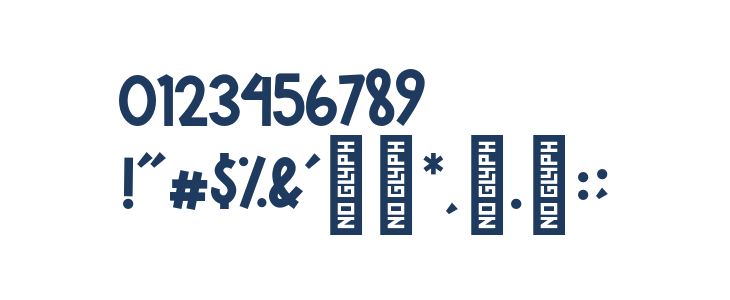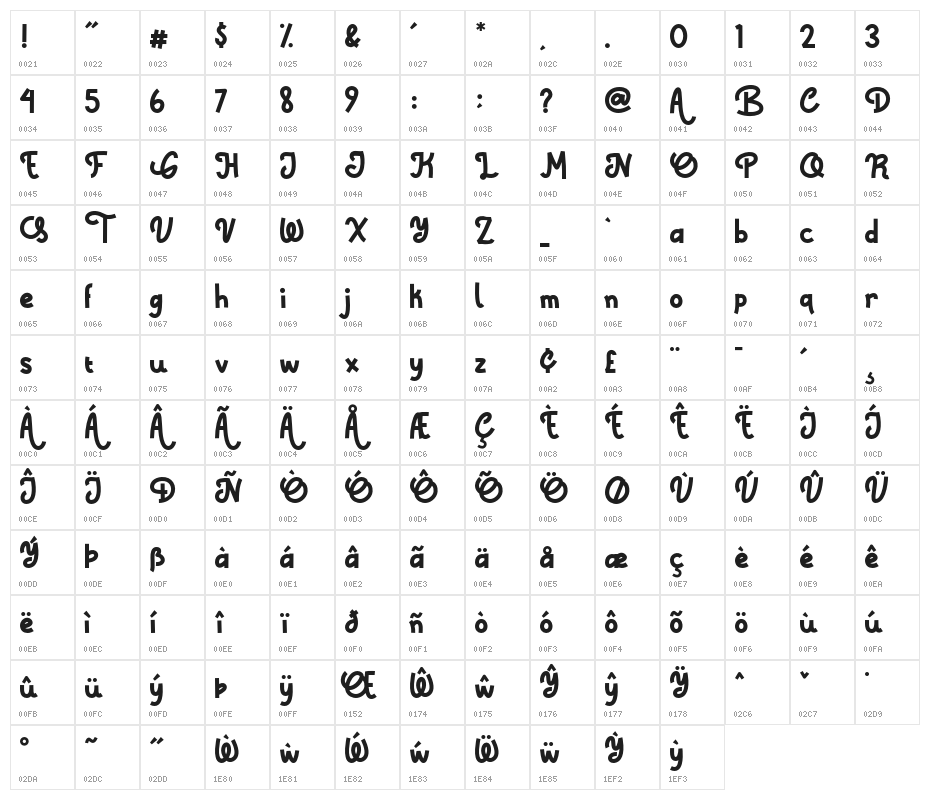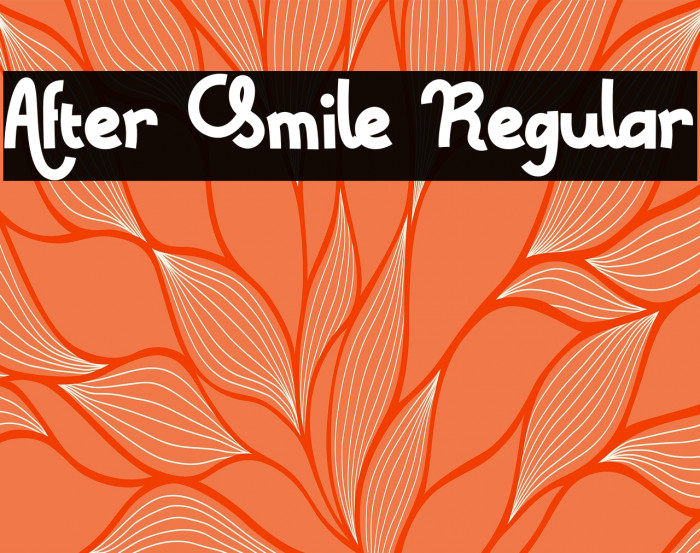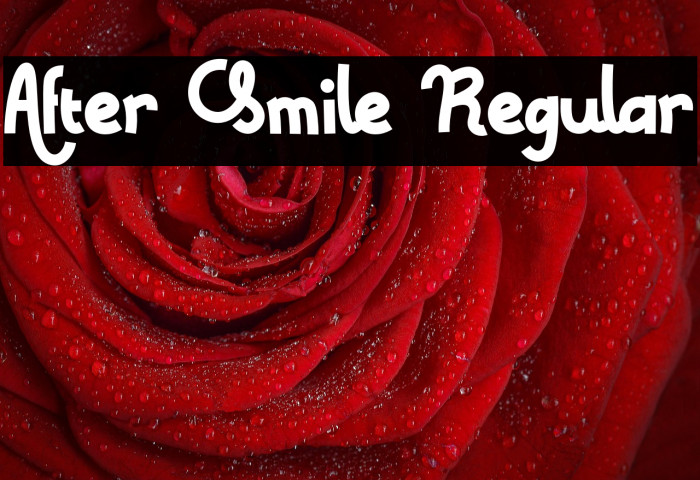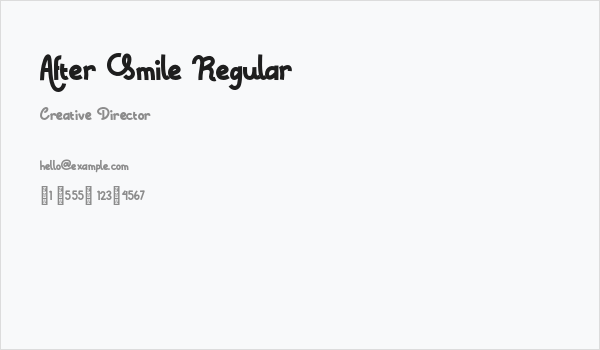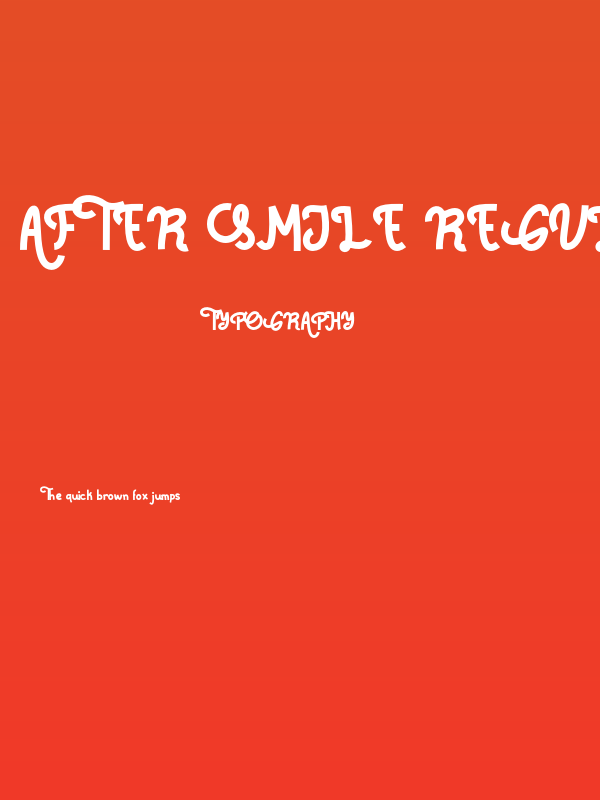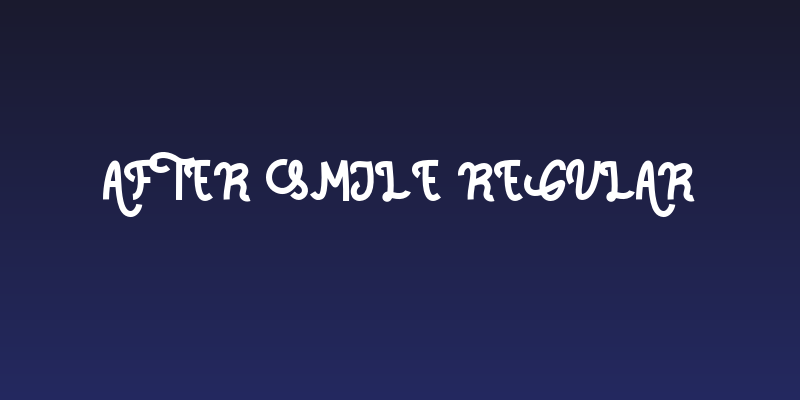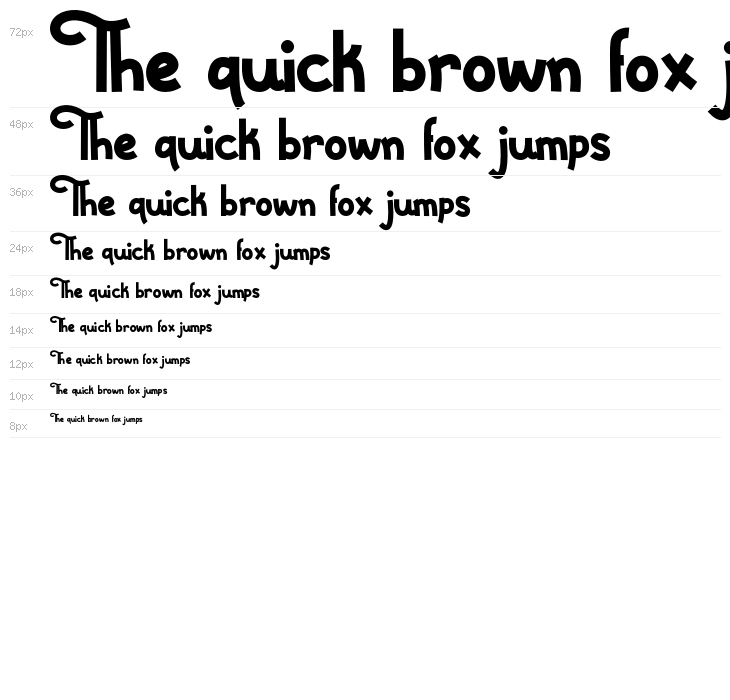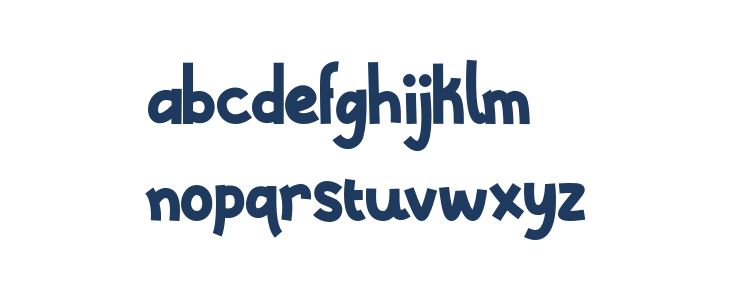
After Smile Regular Font
After Smile Regular Description
This font features a playful and whimsical style, characterized by its bold and rounded letterforms. The uppercase letters have a unique flair with slight curls and swirls, adding a touch of fun and creativity. The lowercase letters maintain a consistent style, with smooth curves and a friendly appearance. The numerals are bold and easily readable, complementing the overall design. Special characters are creatively integrated, maintaining the font's playful nature. This font is perfect for projects that require a lively and engaging aesthetic.